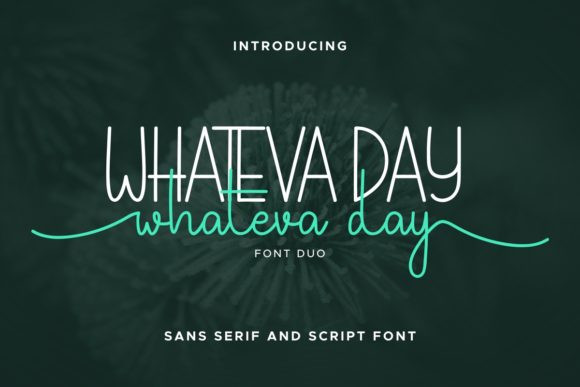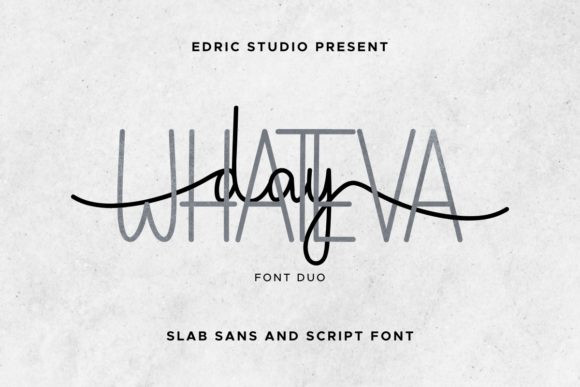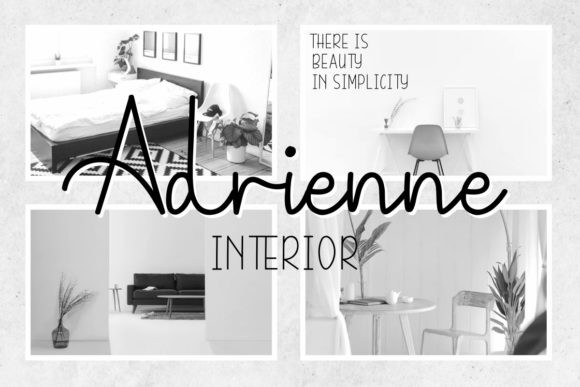
Whateva Day Font
Whateva Day is a spectacular duo font (sans serif and script). Incredibly versatile, this font fits a wide pool of designs, elevating them to the highest levels. Add this font to your favorite creative ideas and notice how it makes them come alive!